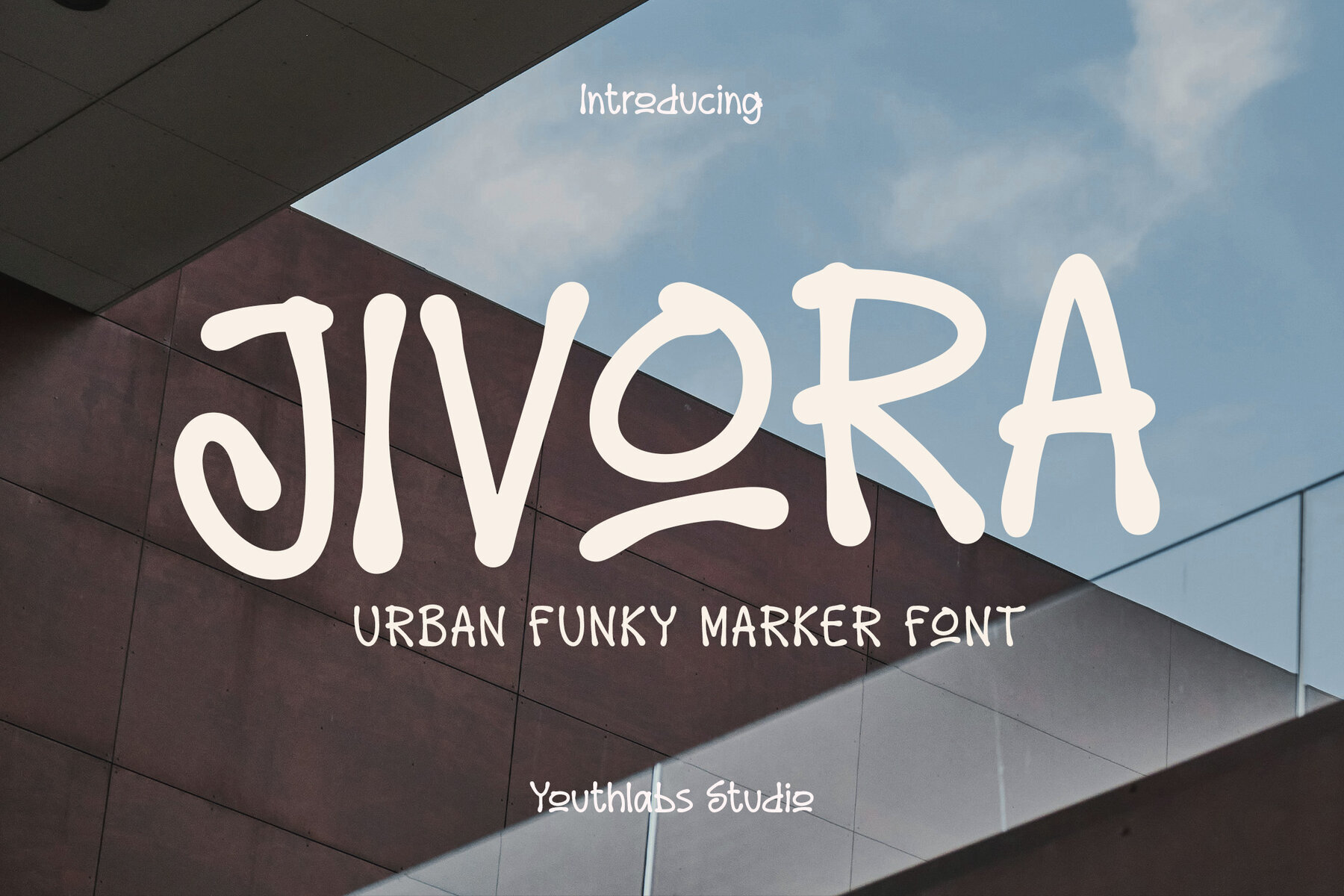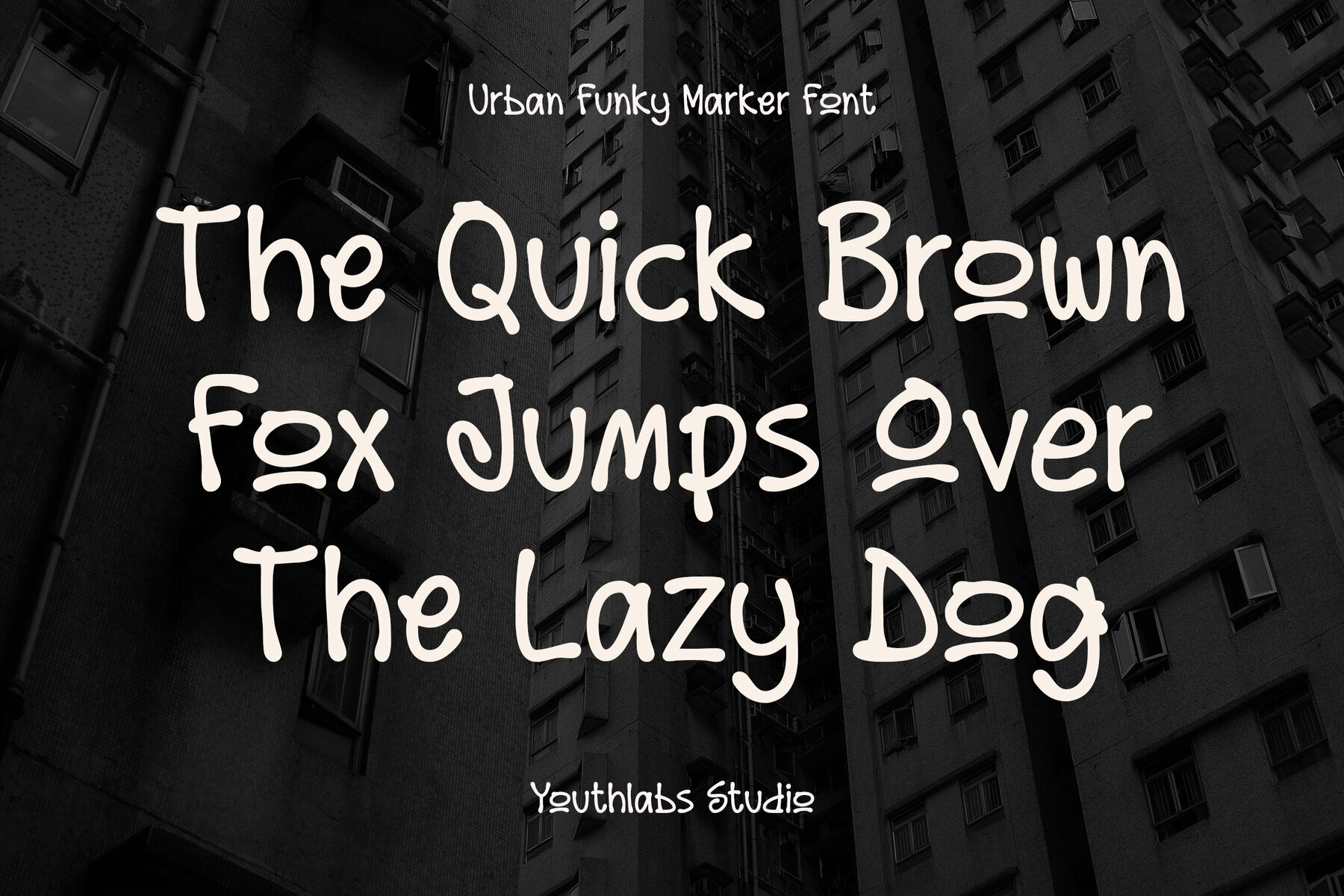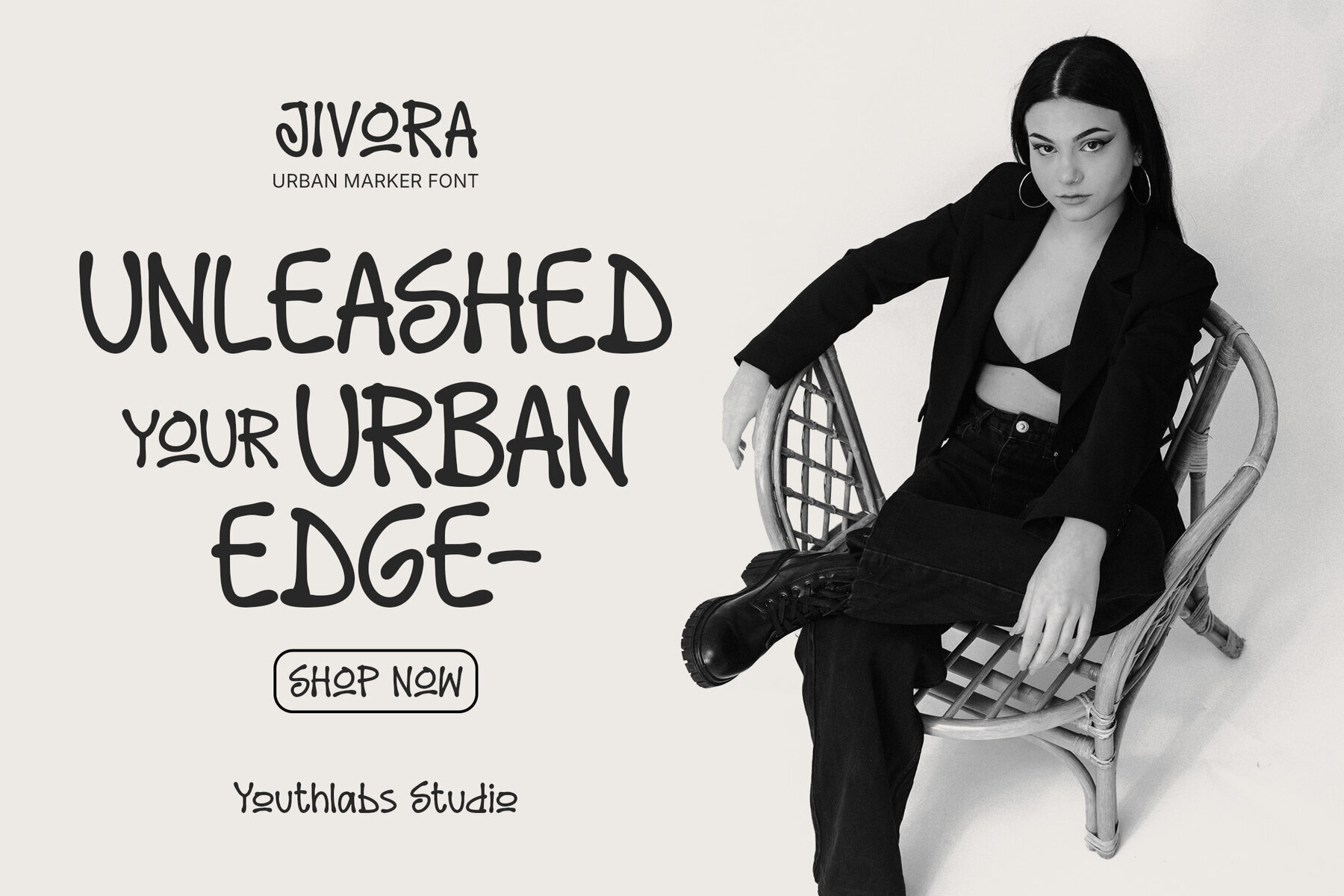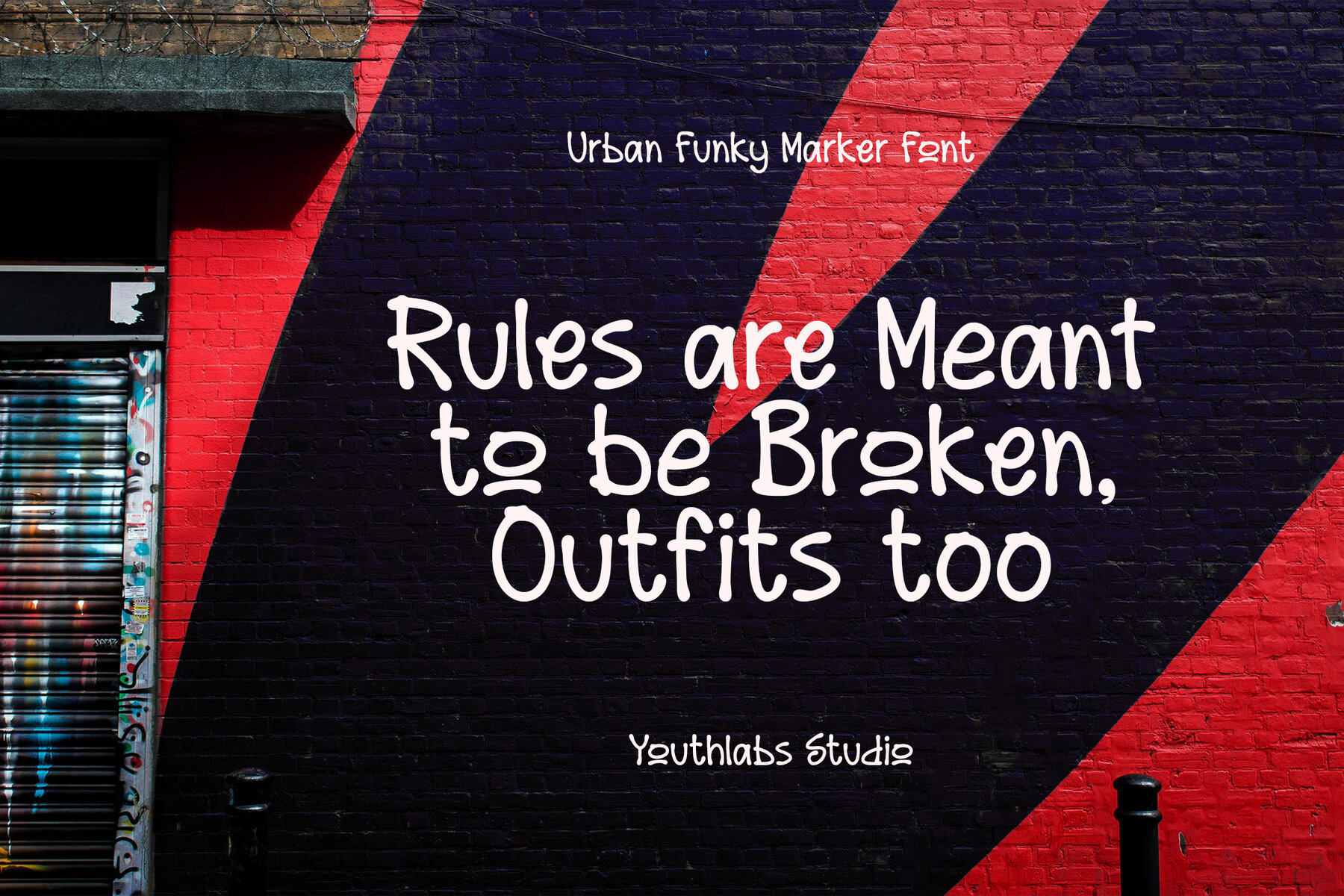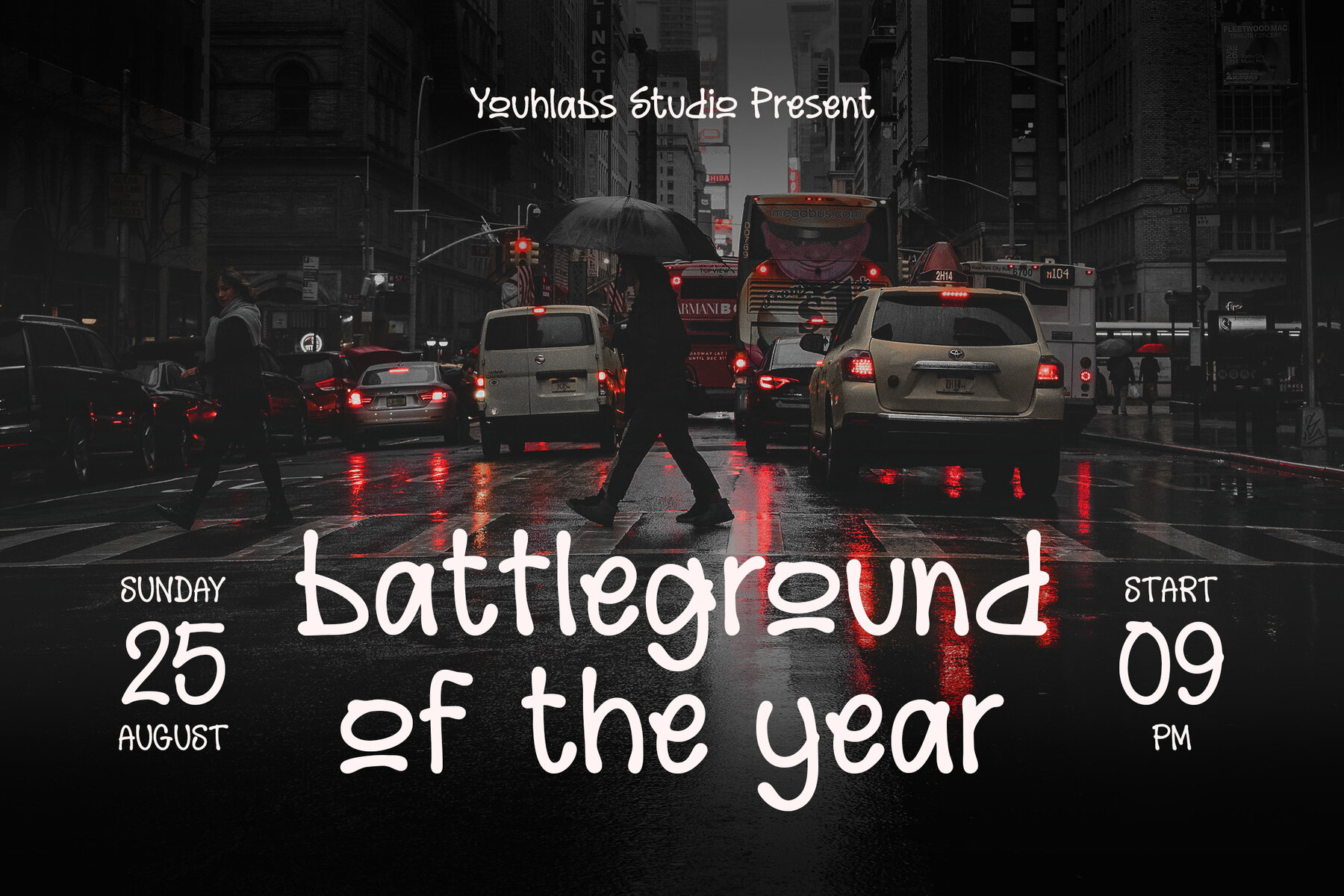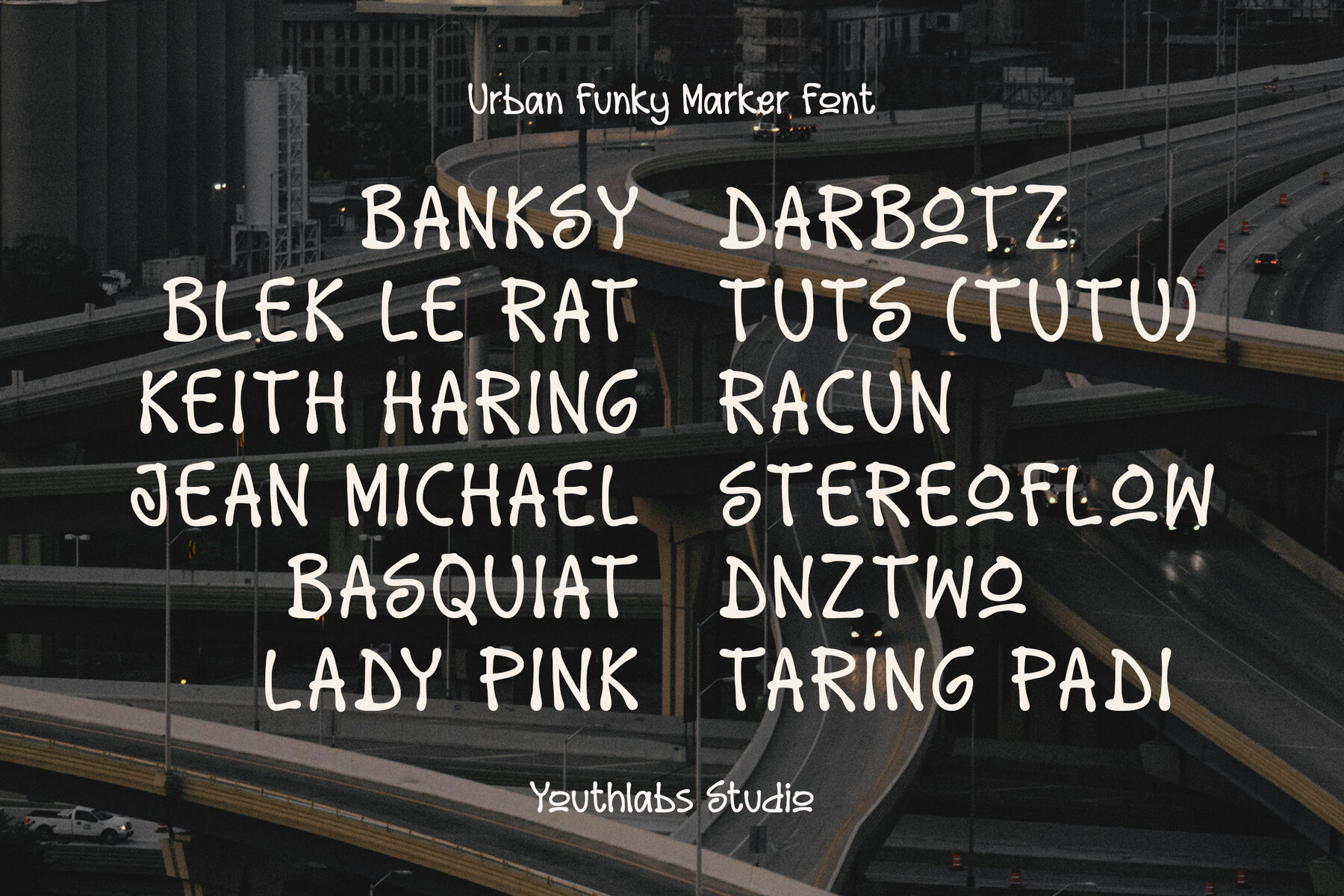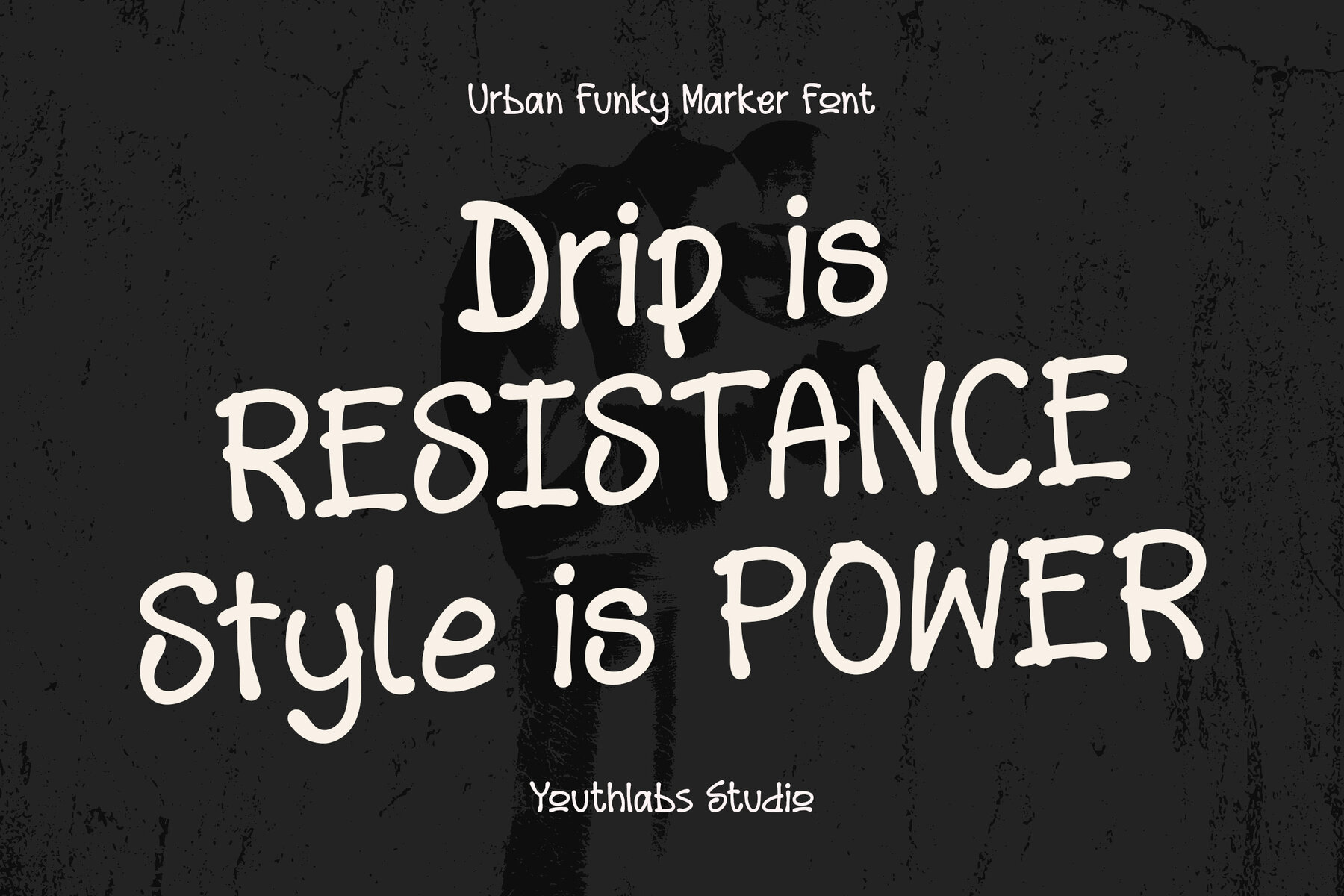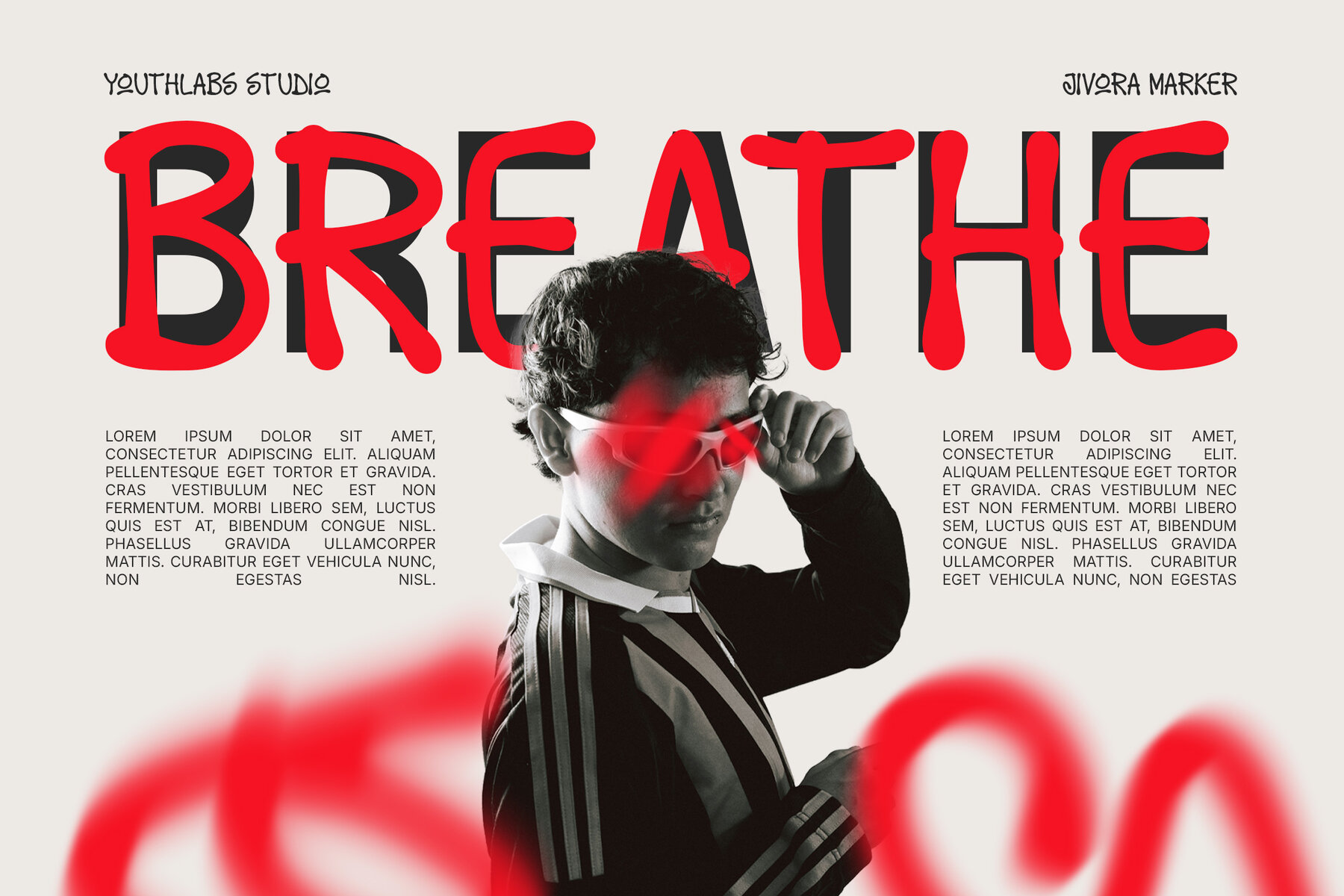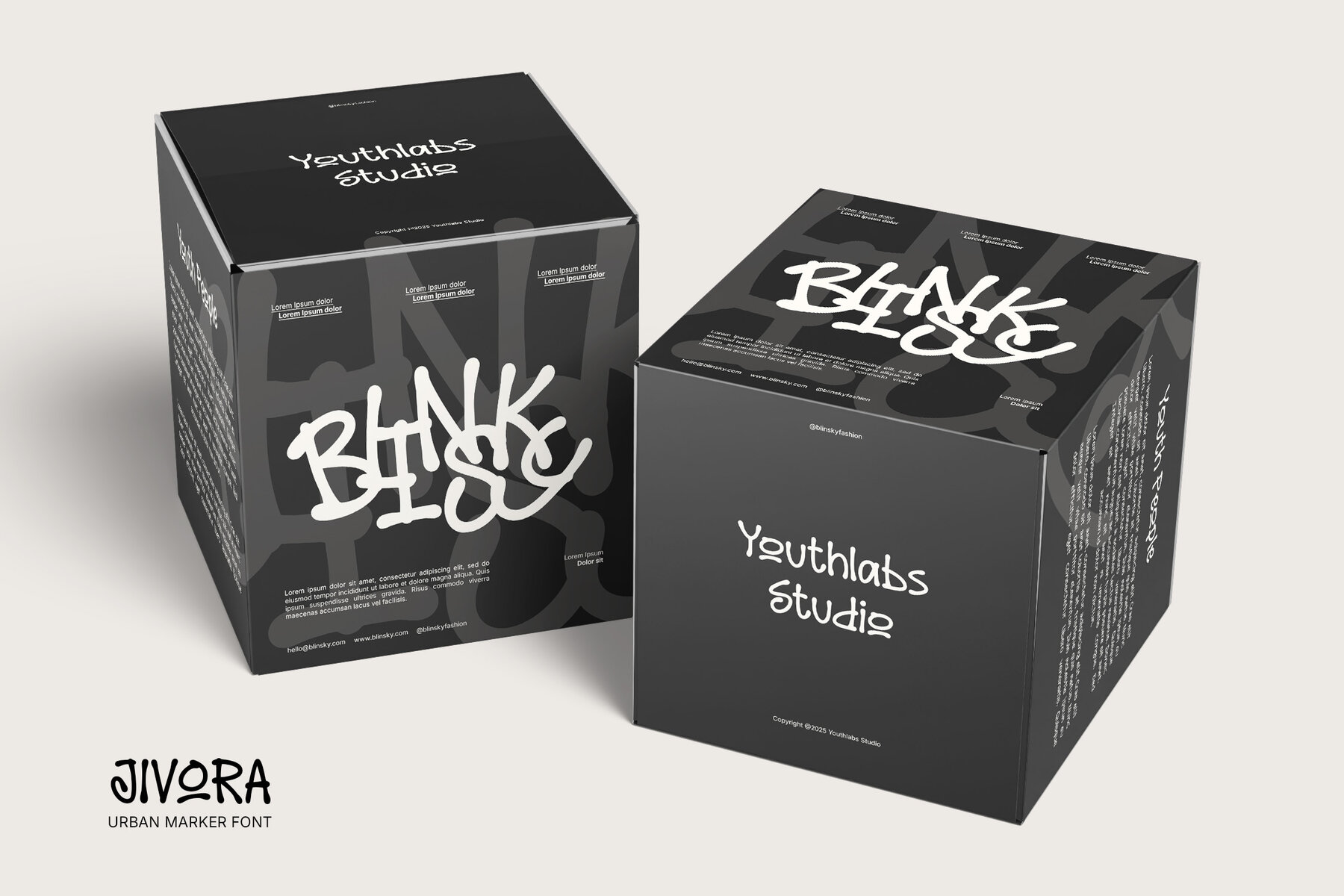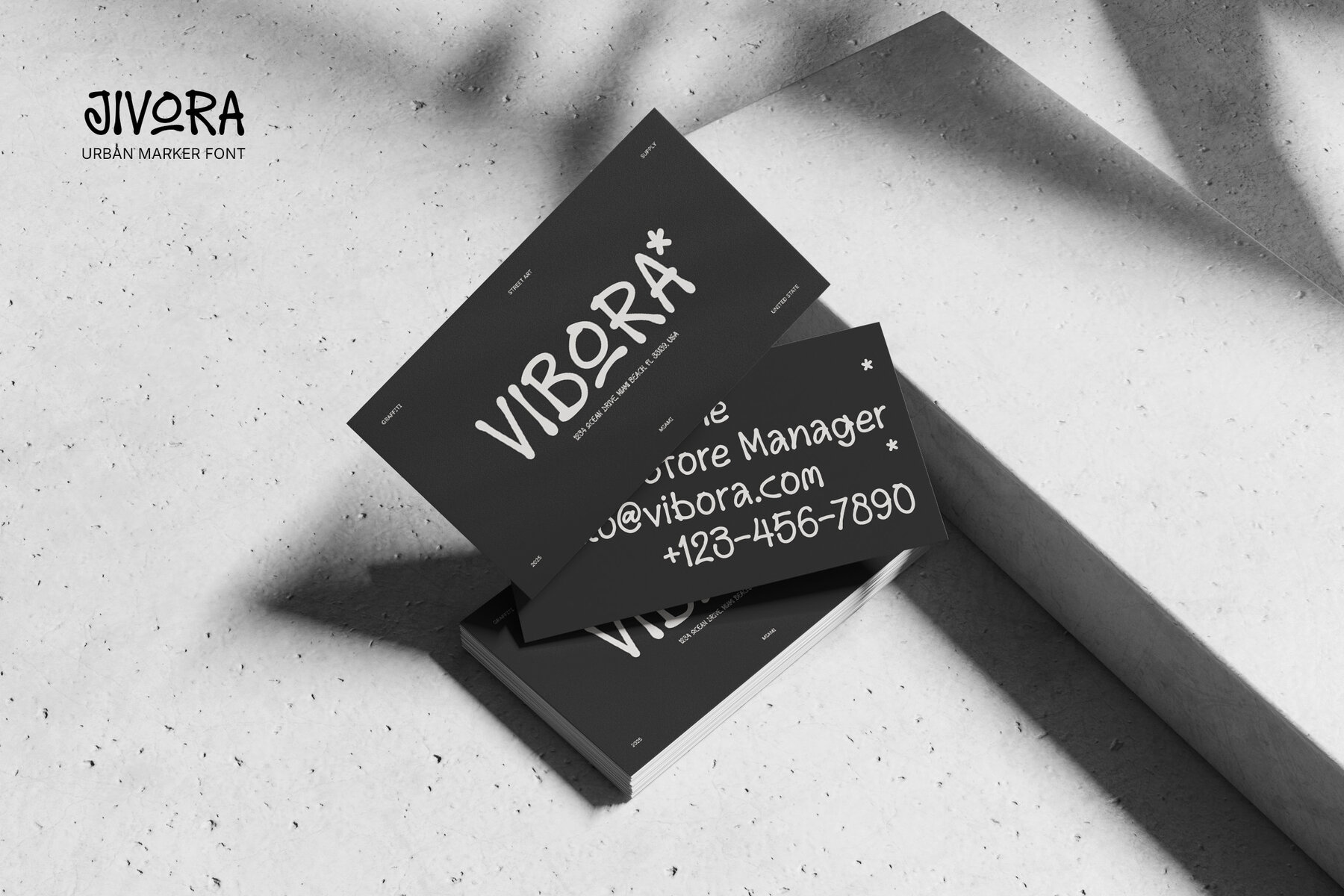
Jivora Font
Jivora Regular
Jivora captures the vibrancy of street art with its bold strokes and playful curves. This hand-drawn, urban-inspired font infuses energy and creativity into any project. Whether for posters, branding, packaging, music covers, social media, or merchandise, Jivora delivers a youthful and dynamic flair. Its organic marker-style flow makes it a choice typeface for those aiming for a fun and expressive look.Jivora: Urban Funk Marker Typeface